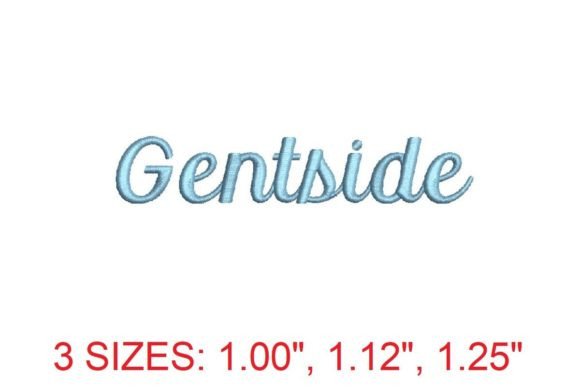
Gentside Embroidery Font
In the world of graphic design and visual communication, typography plays a pivotal role in shaping brand identity and user experience. The Gentside Embroidery Font stands out as a versatile and stylish choice for designers looking to elevate their creative projects with bold, masculine aesthetics. This font is not just about appearance—it’s about functionality, compatibility, and the ability to deliver professional results across a variety of applications.
Aesthetic and Functional Design
The Gentside Embroidery Font is crafted with precision, offering a strong and confident lettering style that exudes sophistication. Its clean lines and structured forms make it ideal for both digital and physical use, whether you're working on logos, branding materials, or embroidered textiles. Designed specifically for embroidery, this font seamlessly integrates with the widely used PES file format, ensuring compatibility with major embroidery machines like Brother and Babylock models.
One of the standout features of Gentside is its attention to detail. Each character is meticulously designed to maintain clarity and legibility even when scaled down or up. This makes it an excellent choice for projects where stitch quality and precision are paramount, such as garment embellishments, accessories, or home decor items.
Applications Across Creative Industries
The versatility of the Gentside Embroidery Font extends beyond traditional embroidery. It can be a powerful tool in branding and logo design, helping to create a strong visual identity that resonates with target audiences. Its bold nature makes it particularly effective for marketing materials, social media content, and website headers, where a striking visual presence is essential.
For designers working on editorial layouts, packaging design, or advertising campaigns, this font adds a layer of professionalism and modernity. Its timeless appeal ensures that it remains relevant across various design trends and aesthetic preferences. Whether you’re crafting a digital product or a physical print, the Gentside Embroidery Font offers a consistent and polished look that aligns with contemporary design standards.
Design Tips for Effective Use
- Consistency: Ensure the font complements your overall design system and maintains a cohesive visual language.
- Readability: Test the font at different sizes to confirm it remains legible in all contexts.
- Scalability: Choose fonts that perform well across various mediums, from small icons to large banners.
- Visual Hierarchy: Use the font strategically to guide the viewer's eye and emphasize key messages.
- Compatibility: Verify that the font works well with your existing design assets and tools.
When combined with thoughtful color palettes and composition techniques, the Gentside Embroidery Font can significantly enhance the overall impact of your designs. It’s a valuable asset for any designer aiming to achieve a balance between creativity and practicality.
Ultimately, the right choice of typography can transform a simple design into a compelling visual narrative. The Gentside Embroidery Font offers a unique blend of style, function, and adaptability, making it an essential resource for designers who value both aesthetics and usability. By incorporating this font into your creative workflow, you can ensure that your projects stand out with confidence and clarity.